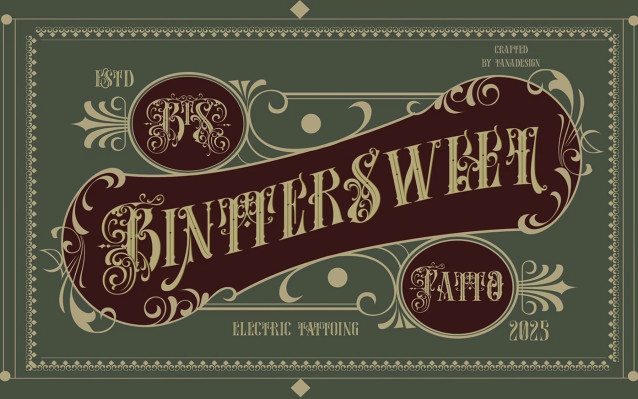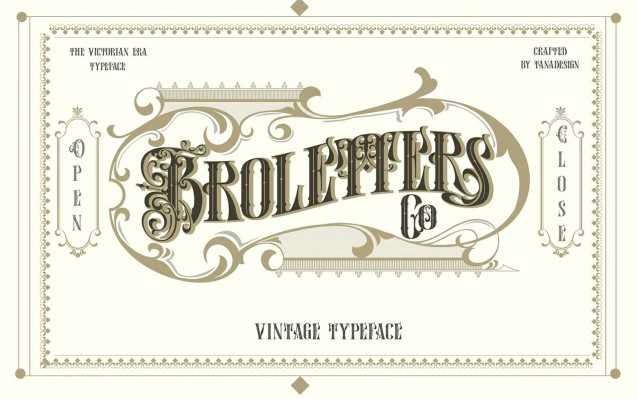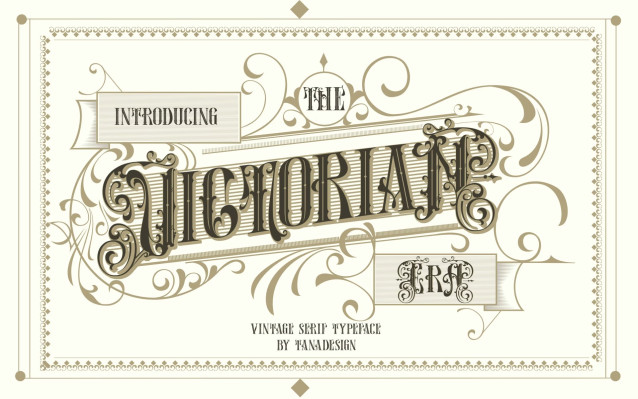
The Victorian Era Font
The Victorian Era Font a beautifully crafted serif typeface inspired by the opulent charm of the Victorian period. This font captures the essence of vintage allure with a modern twist, making it the perfect choice for designs that require sophistication, elegance, and a touch of classical romance.